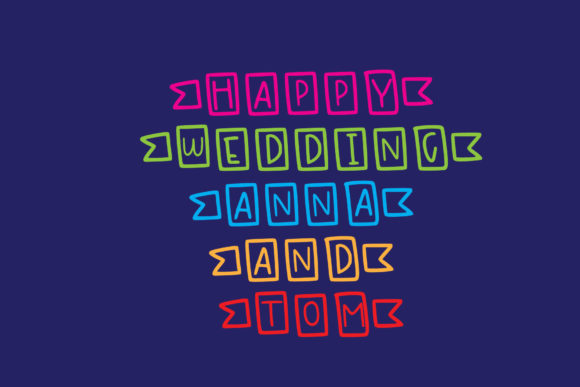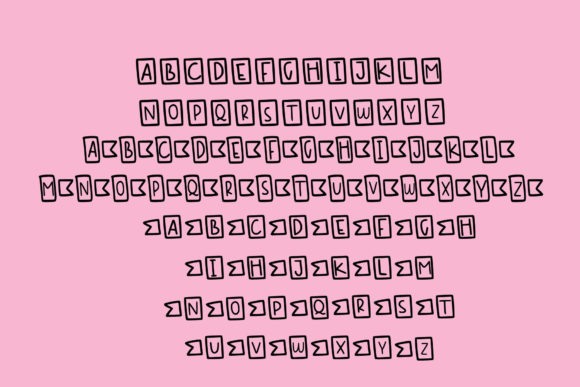
Discover the Charm of Fun Decorative Dingbats Font: Love You Forever
Are you tired of using the same old fonts in your designs? Do you want to add a touch of whimsy and personality to your creations? Look no further than the Love You Forever fun decorative dingbats font! This adorable font is perfect for designers and crafters who want to take their work to the next level.
What is Love You Forever?
Love You Forever is a cute, friendly, and adaptable decorative font that is sure to become a staple in your font library. With its unique and charming design, this font is perfect for a wide range of projects, from greeting cards and invitations to social media graphics and blog posts.
Key Features of Love You Forever
- Cute and Friendly Design: Love You Forever features a playful and approachable design that is sure to delight your audience.
- Adaptable: This font is versatile and can be used for a wide range of projects, from formal to informal.
- Easy to Read: Despite its decorative nature, Love You Forever is easy to read, making it perfect for body text and headlines.
- Unique Dingbats: This font features a range of fun and quirky dingbats that can add a touch of personality to your designs.
Why You Need Love You Forever in Your Font Library
Love You Forever is more than just a font – it’s a design asset that can elevate any creation. Here are just a few reasons why you need this font in your library:
- Adds Personality to Your Designs: With Love You Forever, you can add a touch of whimsy and personality to your designs, making them stand out from the crowd.
- Perfect for Crafty Projects: This font is perfect for crafty projects, such as DIY tutorials, crafting blogs, and handmade product labels.
- Great for Social Media Graphics: Love You Forever is perfect for social media graphics, including Facebook posts, Instagram captions, and Twitter headers.
- Saves Time: With Love You Forever, you can create professional-looking designs in no time, saving you time and effort.
How to Use Love You Forever
Using Love You Forever is easy! Here are a few tips to get you started:
- Pair it with Other Fonts: Love You Forever pairs well with other fonts, including sans-serif and script fonts.
- Use it for Headlines and Body Text: This font is versatile and can be used for both headlines and body text.
- Experiment with Colors: Love You Forever looks great in a range of colors, from bright and bold to pastel and soft.
In conclusion, Love You Forever is a fun and decorative dingbats font that is sure to become a favorite in your font library. With its cute and friendly design, adaptable nature, and unique dingbats, this font is perfect for a wide range of projects. Whether you’re a designer, crafter, or DIY enthusiast, Love You Forever is a must-have font that can elevate any creation.